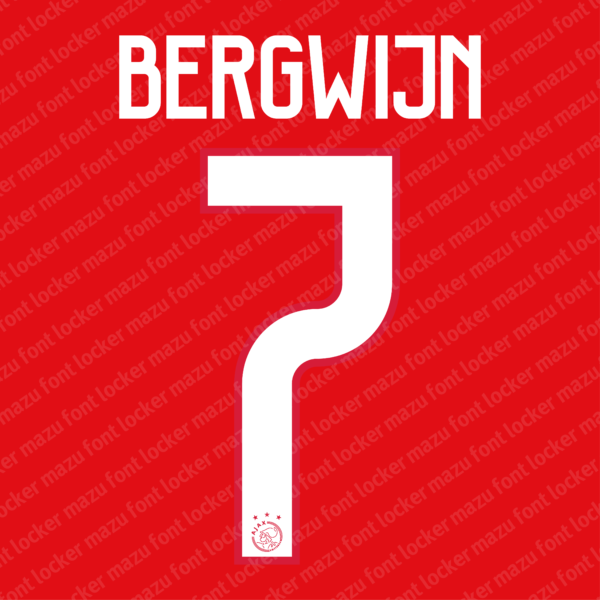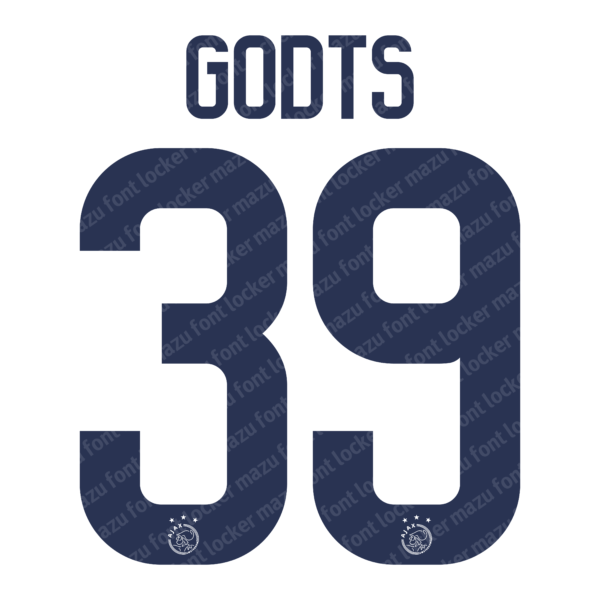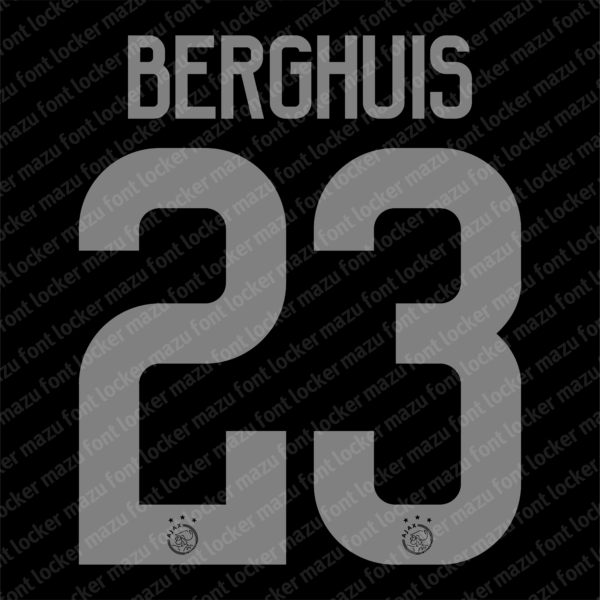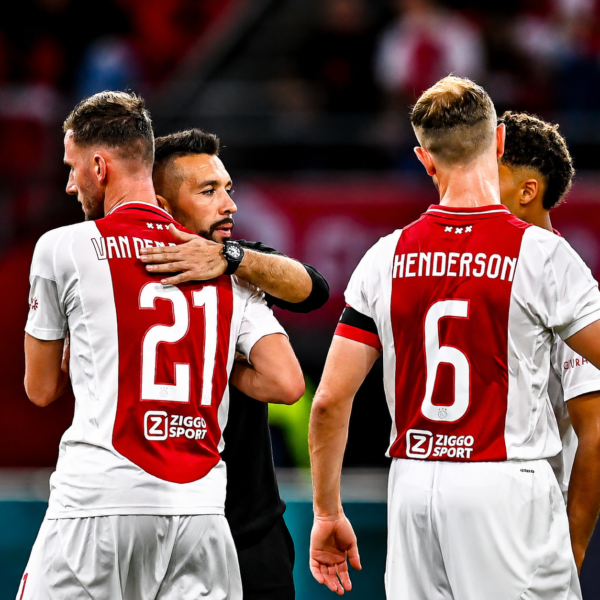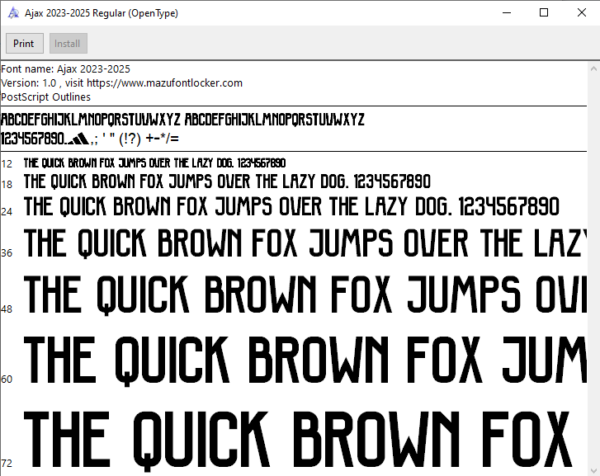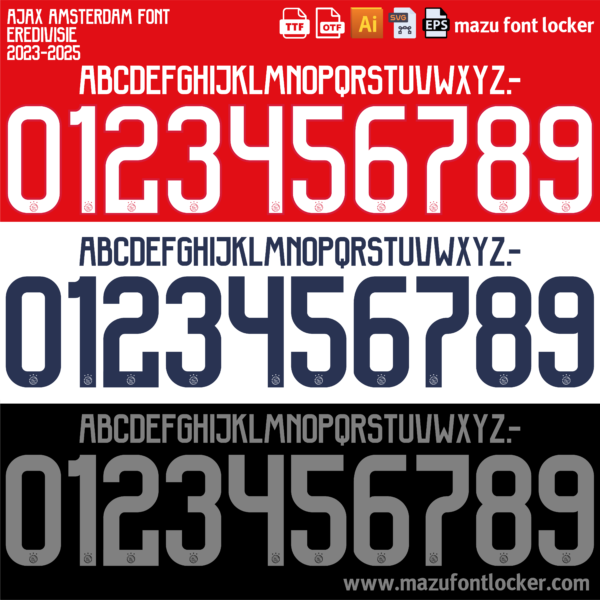
Ajax Amsterdam 2023-2025 Font Vector – Legendary Godenzonen Masterpiece
Download Ajax Amsterdam 2023-2025 Font now and unleash the legendary total football spirit of the Godenzonen straight into your designs. This premium vector font perfectly captures the bold, dynamic, and electrifying identity of Ajax Amsterdam during their iconic 2023-2025 era. Every letter and number is crafted with razor-sharp precision, elegant curves, and powerful details that reflect the club’s rich heritage, attacking brilliance, and world-renowned philosophy.
Whether you’re creating matchday posters, fan merchandise, custom jerseys, social media graphics, t-shirts, or premium digital artwork, this Ajax Amsterdam 2023-2025 Font delivers professional quality with stunning vibrancy and maximum impact. The font masterfully combines modern elegance with the authentic red and white identity of Ajax, making every headline pulse with true Amsterdam pride and intensity.
Elevate your projects with authentic Ajax DNA and let your creativity soar like the eagles of the Johan Cruyff Arena.
Ajax Amsterdam 2023-2025 Font Vector
The Ajax Amsterdam 2023-2025 Font is a premium, high-precision football jersey font vector meticulously engineered to capture the fearless energy, explosive passion, and electrifying identity of Ajax Amsterdam’s legendary 2023-2025 campaign.
Inspired by the mighty Godenzonen and their iconic, high-intensity performances throughout the unforgettable 2023-2025 era, this font unleashes a bold, majestic, and devastatingly powerful presence that radiates unbreakable Ajax pride, rich heritage, and unstoppable attacking brilliance. Every letter and number has been painstakingly recreated with razor-sharp precision to embody the vibrant red and white identity, relentless total football mentality, and glorious legacy that makes Ajax Amsterdam one of the most respected and feared forces in European football.
Feel the fire of the Johan Cruyff Arena. Ignite the passion. Unleash the legendary spirit of the Godenzonen and the unstoppable power of Ajax Amsterdam 2023-2025.
🔥 Ajax Amsterdam 2023-2025 Font Features
• Authentic 2023-2025 Ajax Amsterdam jersey lettering style
The authentic lettering style helps recreate the classic look of the Ajax Amsterdam 2023-2025 kit with professional accuracy.
Unlike generic jersey fonts, this set is designed with a strong focus on authenticity and accuracy. Every detail is based on the original match lettering style used during the 2023-2025, helping designers and collectors create realistic football shirt designs.